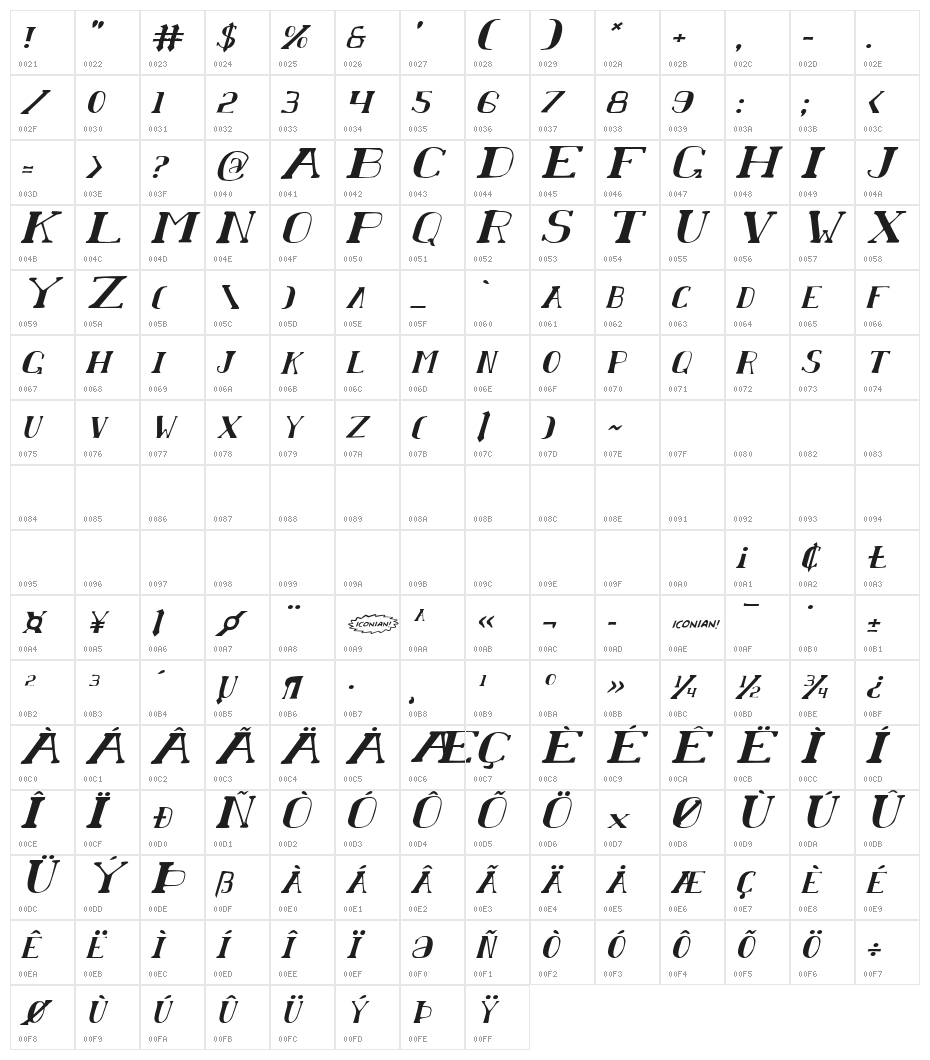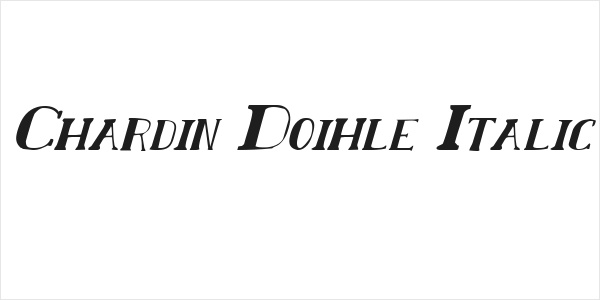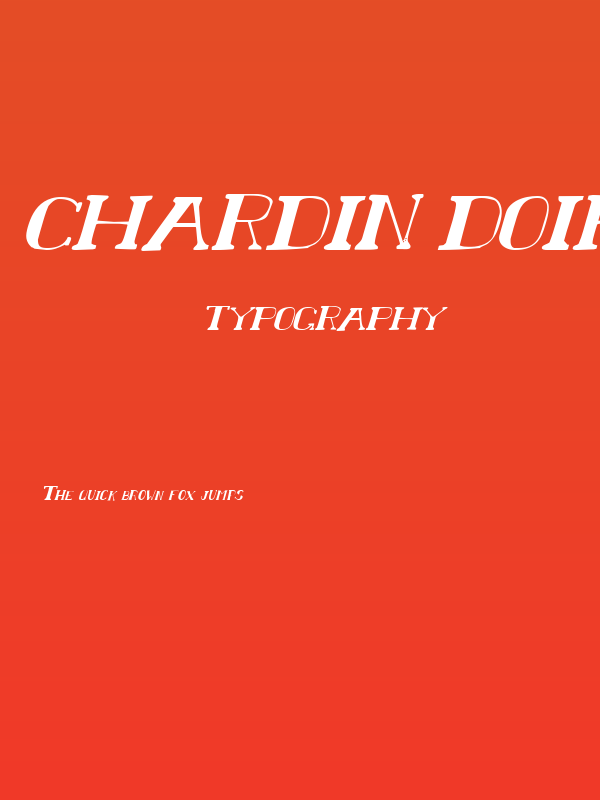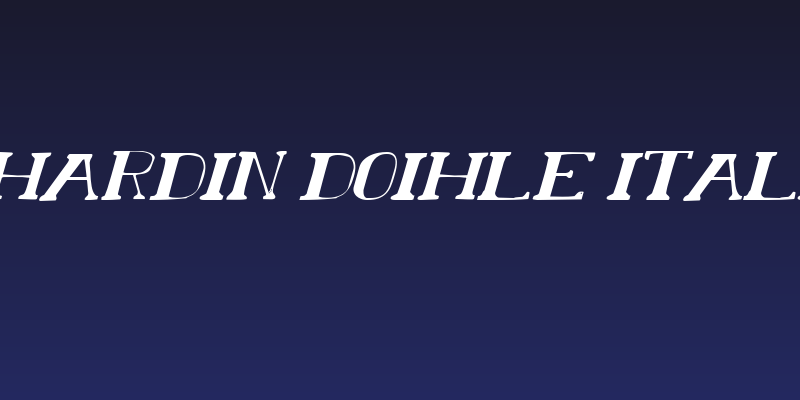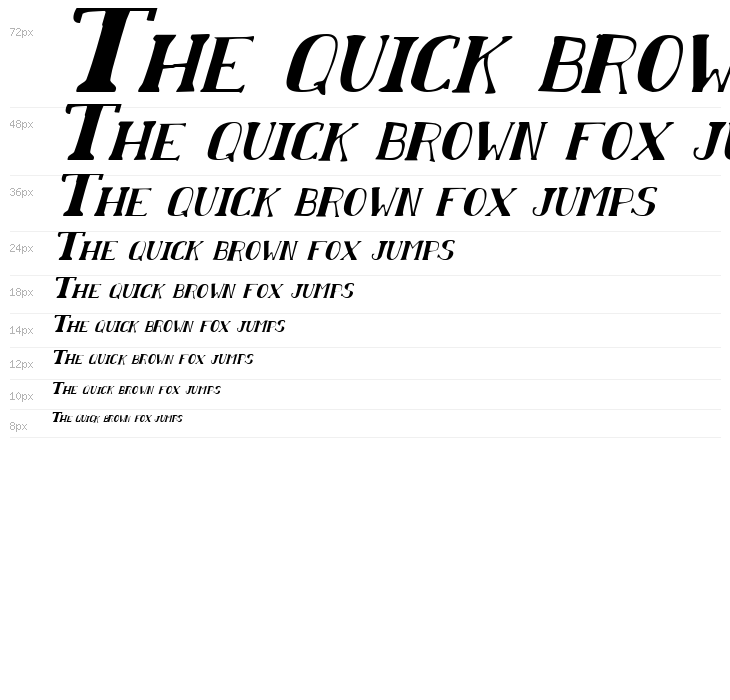
Chardin Doihle Italic Font
Chardin Doihle Italic Description
This font features a dynamic and elegant italic style with a distinct slant, giving it a sense of motion and sophistication. The characters are well-defined with a moderate contrast in stroke thickness, adding to its readability while maintaining a stylish appearance. The uppercase letters are bold and commanding, while the lowercase letters retain a graceful flow. Numbers and special characters are designed to complement the overall aesthetic, making it versatile for various applications.